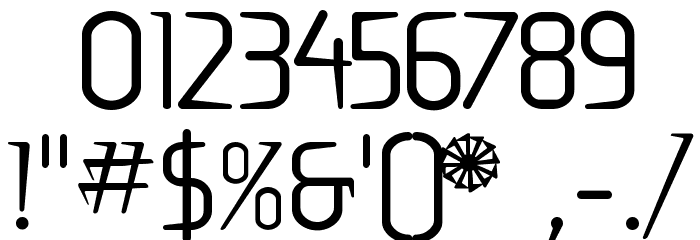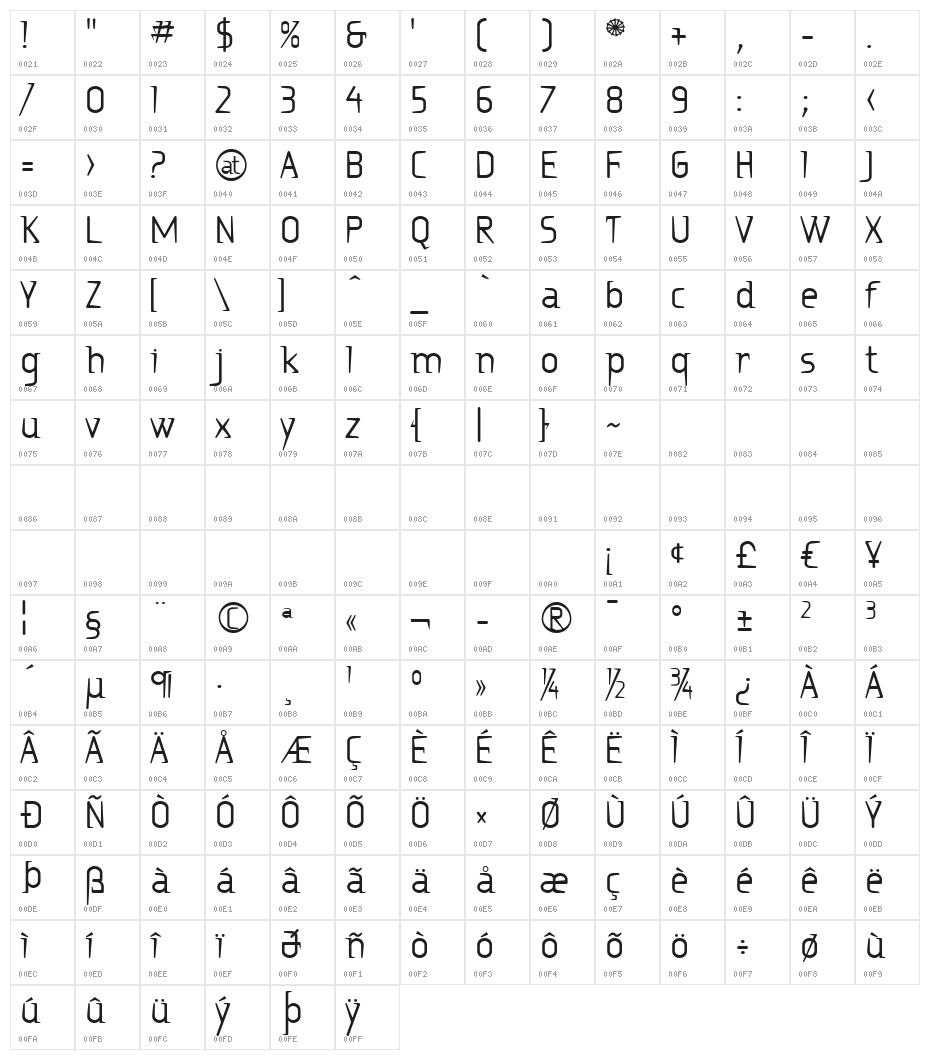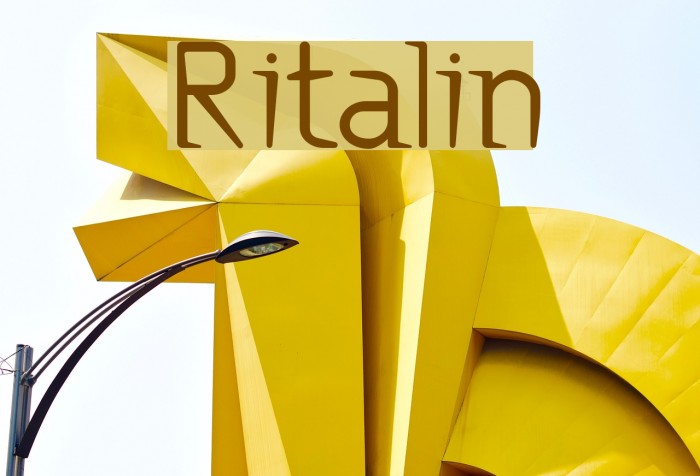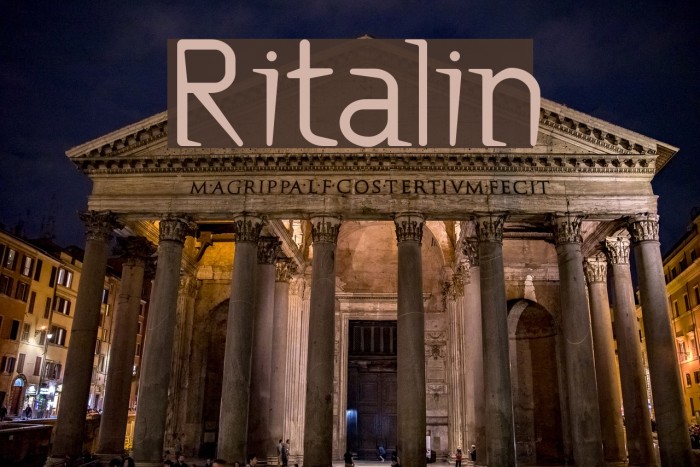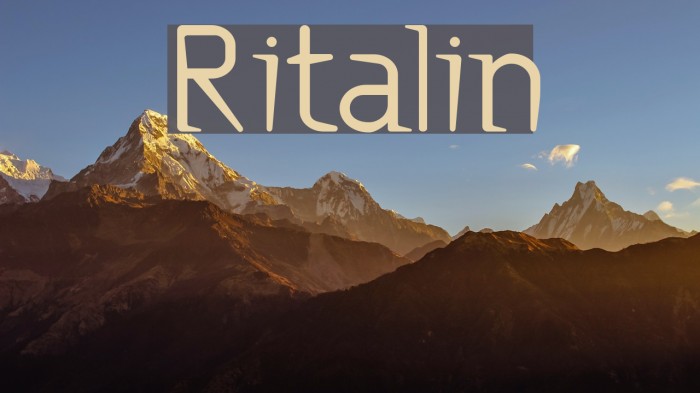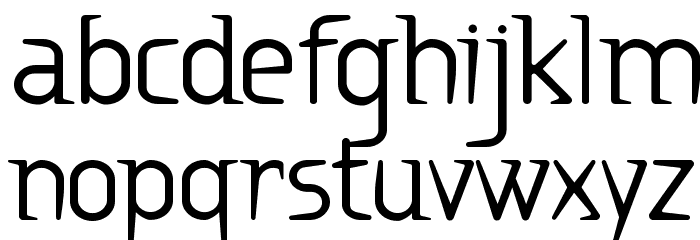
Ritalin Font
Ritalin Description
This font features a modern and geometric design with clean lines and a slightly condensed appearance. The uppercase letters are tall and narrow, while the lowercase letters maintain a consistent height, offering a harmonious balance. The numerals are distinct and easy to read, complementing the overall style. Special characters are uniquely styled, adding a touch of creativity. The font's structure is uniform, with a medium stroke contrast that enhances readability without sacrificing style. Its contemporary look makes it suitable for a variety of design projects.
| Use Case | Headlines, Logos, Digital Media |
| Proposed Projects | Ideal for branding, advertising, digital media, and modern web design projects. |